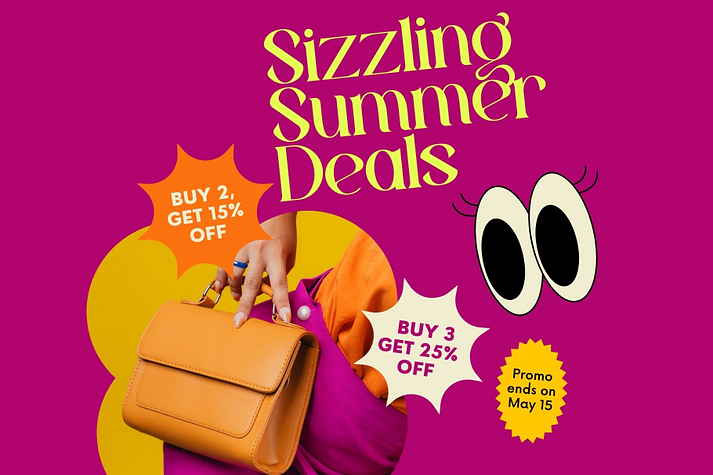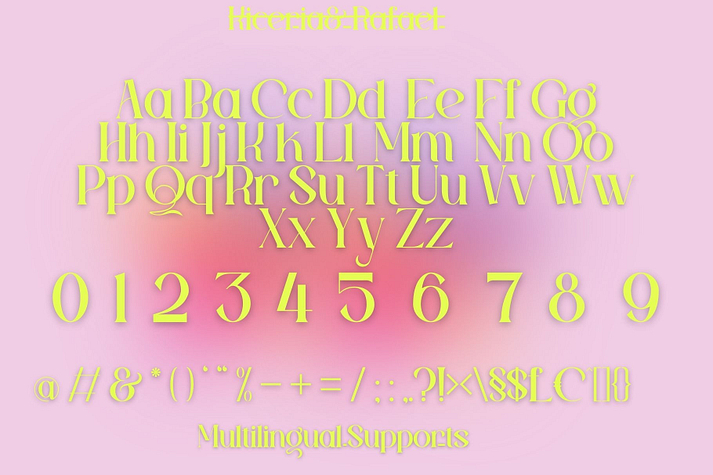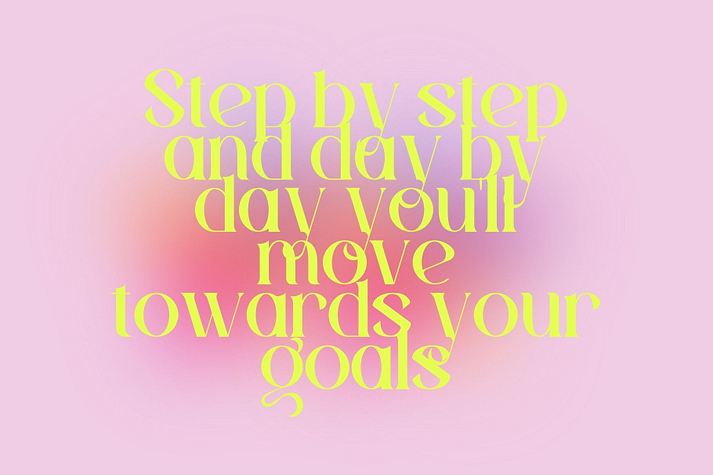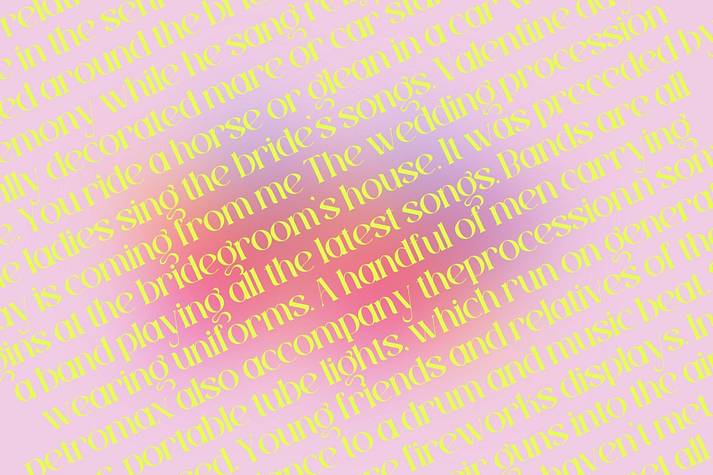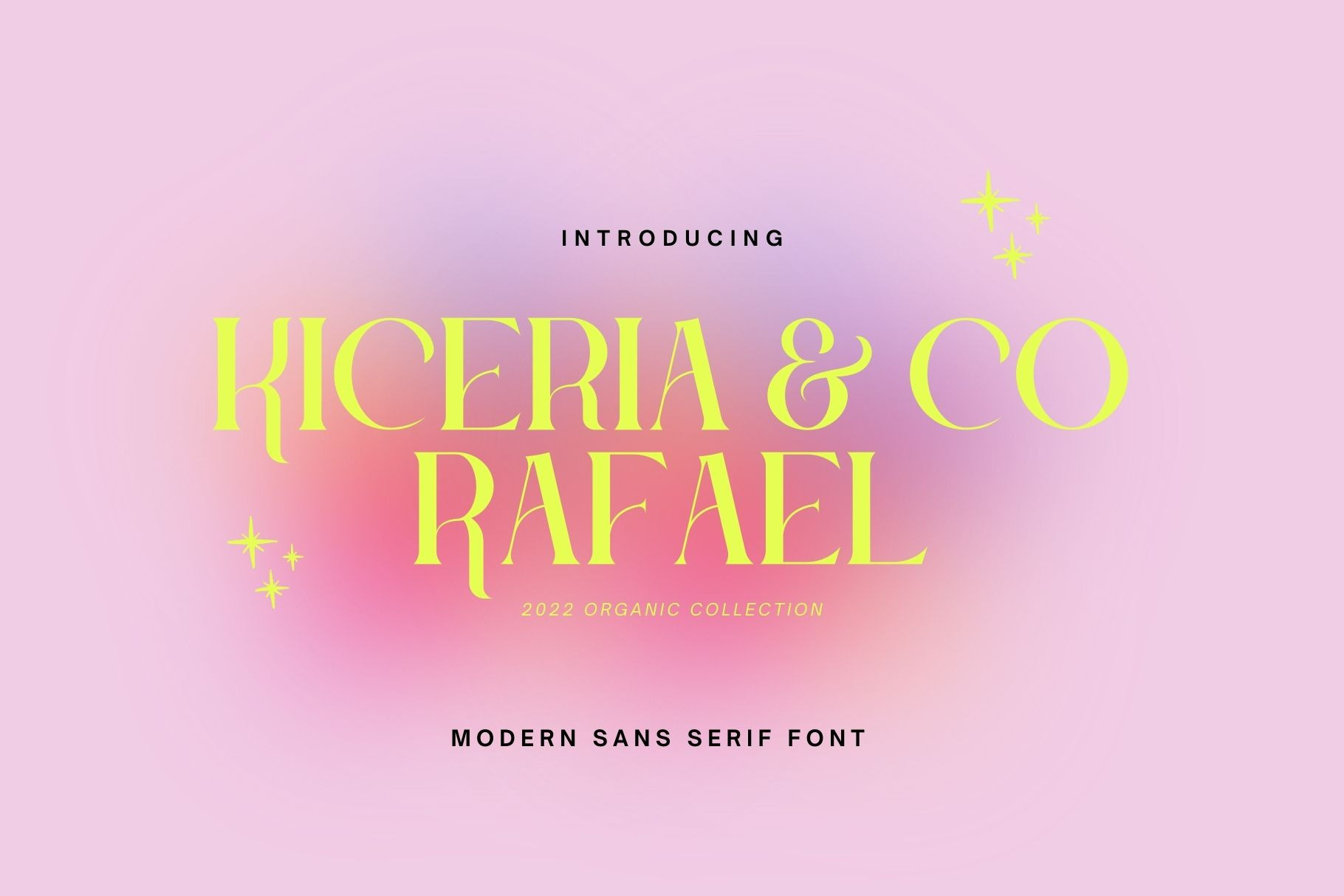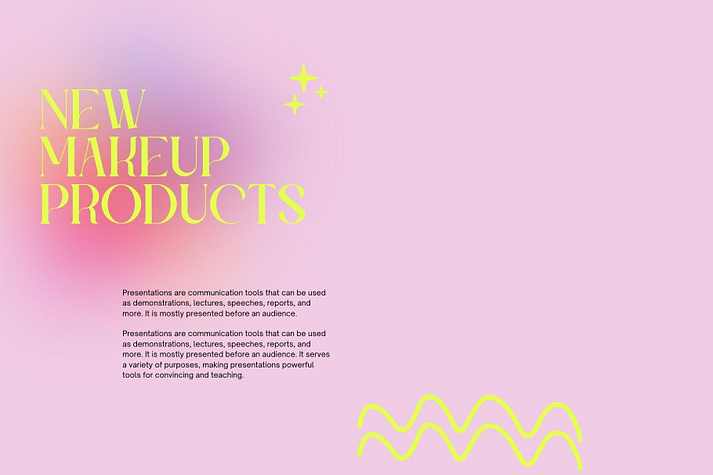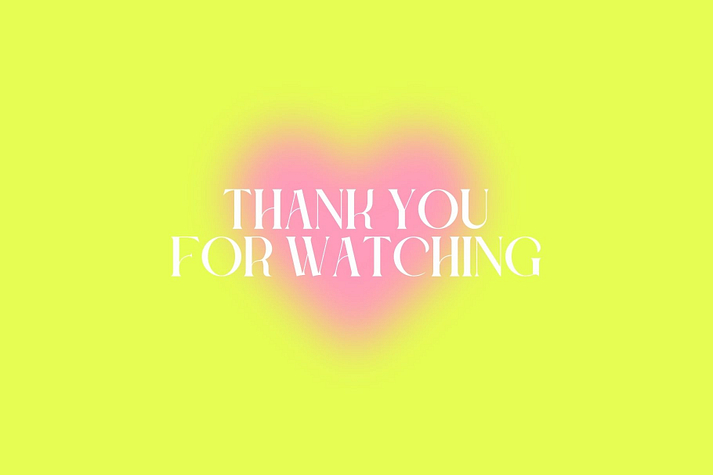
Kiceria and Rafael
Kiceria and Rafael is a serif font family published by Aditastudios.
Kiceria and Rafael is a premium serif font, perfect for any project like: logos, branding projects, homewares designs, product packaging, mugs, quotes, posters, shopping bags, t-shirts, covers books, business cards, invitation cards, greeting cards, labels, photography, watermarks, special events and all your other luxury projects that require a premium taste.